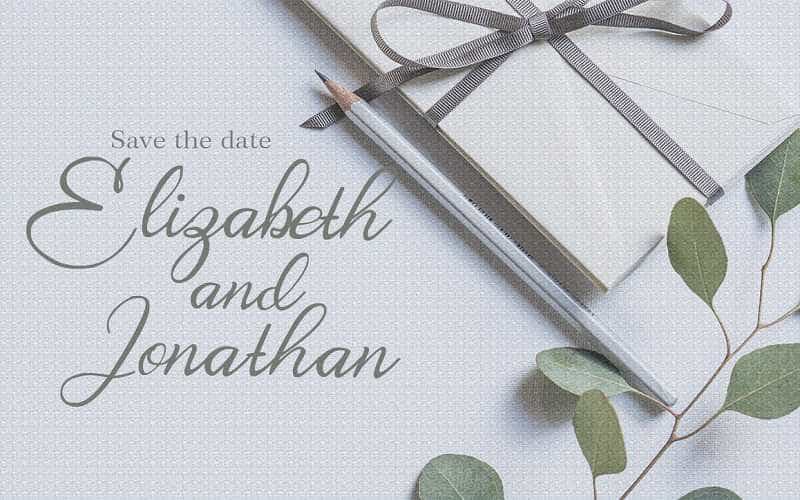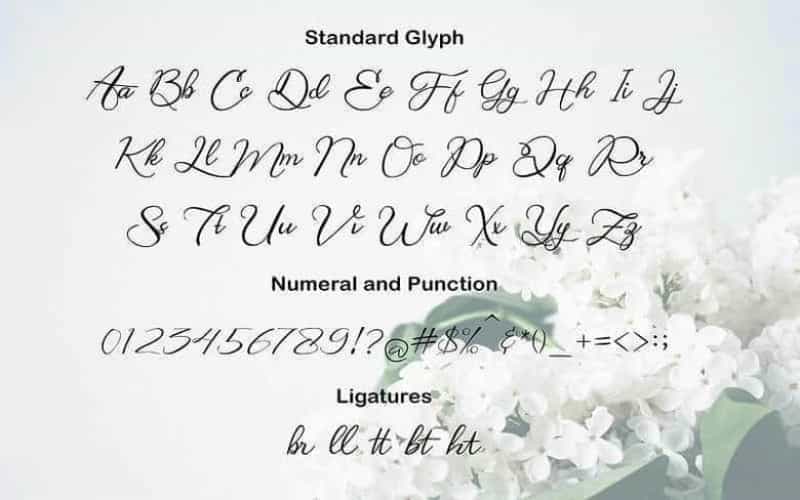
Bring Heart is presented as a beautiful and a modern calligraphy font that will add an elegant touch to your projects. This modern calligraphy font will add to the professionalism of your work, as well as the flexibility of the styles and designs it is capable of.